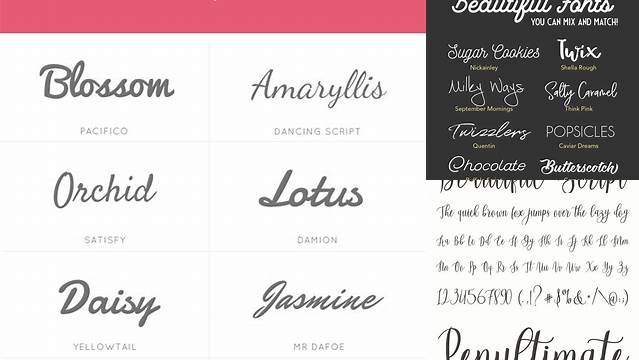
Best Free Script Fonts: Download & Use Guide
Are you looking to add a touch of elegance, personality, or playfulness to your designs? Look no further than free script fonts! These fonts mimic the fluid, handwritten strokes of calligraphy and handwriting, offering a unique alternative to traditional typefaces. In this ultimate guide, we'll explore the world of free script fonts, covering everything from their diverse styles and uses to where you can find the best ones and how to effectively incorporate them into your projects. Get ready to unlock a world of beautiful typography and elevate your designs with the perfect script font.
Understanding the Allure of Script Fonts
Script fonts hold a special appeal due to their inherent connection to human touch. Unlike the rigid forms of many sans-serif or serif fonts, script fonts evoke a sense of artistry, individuality, and warmth. This makes them incredibly versatile for various design applications, from branding and logos to invitations and social media graphics. The flowing lines and varied stroke weights create a visual rhythm that can draw the eye and add a touch of sophistication or whimsy, depending on the specific style. Whether you're aiming for a classic, vintage aesthetic or a modern, playful vibe, there's a script font out there to perfectly capture the mood.
One of the key benefits of using script fonts is their ability to convey emotion and personality. A carefully chosen script font can instantly communicate the brand's values, whether it's elegance and luxury or fun and approachability. For example, a delicate, flowing script might be ideal for a wedding invitation or a high-end beauty brand, while a bolder, more playful script could be perfect for a children's book or a quirky coffee shop. The versatility of script fonts allows designers to tailor their message to the specific audience and create a lasting impression. However, it's important to use script fonts judiciously. Overusing them or pairing them with incompatible fonts can create a cluttered and confusing design. The key is to find the right balance and use script fonts strategically to enhance the overall visual impact.
Moreover, the rise of digital design has made script fonts more accessible than ever before. With a plethora of free and premium options available online, designers can easily experiment with different styles and find the perfect font for their project. However, navigating the vast landscape of script fonts can be overwhelming. That's why it's essential to understand the different categories of script fonts and their unique characteristics. From formal calligraphy to casual handwriting, each style has its own distinct personality and is suited for different purposes. By understanding these nuances, designers can make informed decisions and choose script fonts that truly elevate their designs.
Diving into the Different Styles of Script Fonts
Script fonts aren't a one-size-fits-all category; they come in a delightful array of styles, each with its own unique personality and application. Understanding these styles is crucial for selecting the perfect font for your project. Let's explore some of the most popular categories:
- Calligraphic Scripts: These fonts emulate the elegant strokes of traditional calligraphy, often featuring graceful curves, flourishes, and varying stroke weights. They're perfect for adding a touch of sophistication and formality to invitations, certificates, and high-end branding.
- Handwritten Scripts: As the name suggests, these fonts mimic the look of natural handwriting. They can range from neat and legible to messy and expressive, making them ideal for adding a personal and approachable touch to designs. Think blog headers, social media graphics, and casual invitations.
- Brush Scripts: These fonts have a textured, painterly look, as if they were created with a brush and ink. They often have bold strokes and a dynamic energy, making them great for eye-catching headlines, posters, and edgy designs.
- Retro Scripts: Inspired by vintage signage and advertising, these fonts evoke a sense of nostalgia and charm. They often feature bold, exaggerated forms and a playful aesthetic, perfect for creating retro-themed designs or adding a touch of vintage flair.
- Modern Scripts: These fonts offer a contemporary take on traditional script styles. They often have clean lines, simplified forms, and a minimalist aesthetic, making them versatile for a wide range of applications, from website design to logo design.
Choosing the right style of script font depends on the overall tone and message of your design. Consider the target audience, the context of the design, and the desired emotional impact. Experiment with different styles and see how they interact with the other elements in your design. Remember, the goal is to create a harmonious and visually appealing composition that effectively communicates your message.
Furthermore, it's important to pay attention to the legibility of the script font. While some script fonts are highly decorative and expressive, they may not be suitable for body text or long passages of text. In such cases, it's best to use a simpler, more legible font for the body text and reserve the script font for headings or accents. This will ensure that your design is both visually appealing and easy to read.
Finding the Best Free Script Fonts: Resources and Tips
Okay, guys, now that we know all about the styles, let's get to the good stuff: where to find awesome free script fonts! The internet is overflowing with options, but not all fonts are created equal. Here's a curated list of resources and some tips to help you find the best free script fonts for your projects:
Conclusion: Unleash Your Creativity with Free Script Fonts
Free script fonts are a fantastic resource for designers looking to add personality, elegance, or playfulness to their projects. By understanding the different styles, knowing where to find the best fonts, and learning how to use them effectively, you can unlock a world of creative possibilities. So go ahead, experiment with different script fonts, and unleash your creativity! With a little practice and attention to detail, you'll be creating stunning designs in no time. Remember to always check the license, prioritize legibility, and use script fonts strategically to achieve the best results. Happy designing!